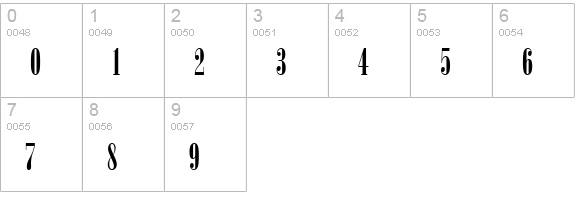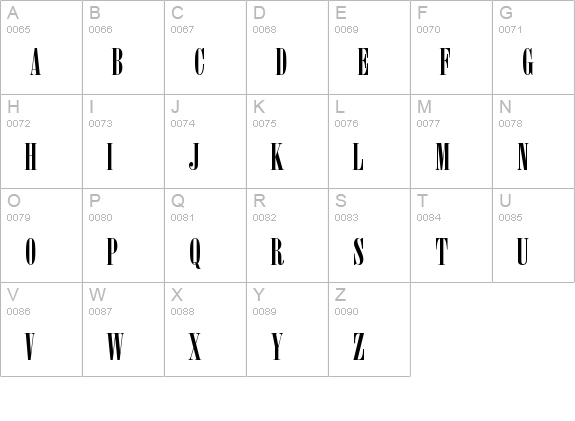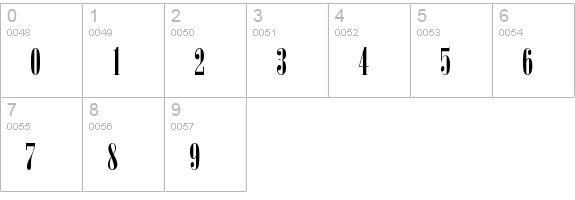
ArsisDReg Font Details
ArsisDReg is a modern and elegant font that exudes sophistication and versatility. With its sleek lines and clean design, this typeface is perfect for a wide range of design projects, from branding to editorial design. The geometric shapes and balanced proportions of ArsisDReg make it a versatile choice for both display and text use. This font is available for free download at FontsMarket.com, making it easily accessible for designers looking to elevate their projects with a touch of elegance and style. Whether you're creating a logo, poster, website, or any other design project, ArsisDReg is sure to make a statement and leave a lasting impression.